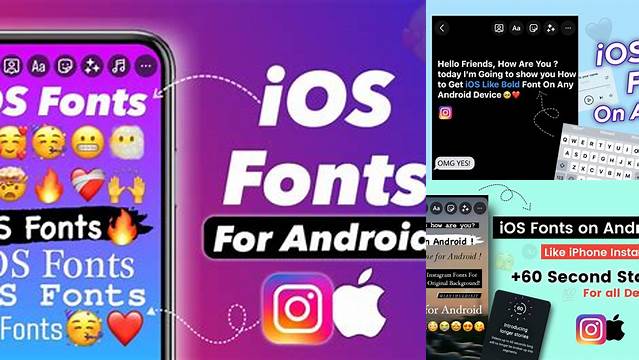
IOS Fonts On Android: A Complete Guide
Hey everyone! Ever looked at your Android phone and wished you could get that sleek, stylish look of iOS fonts? Well, guess what? You totally can! Getting iOS fonts for Android is easier than you might think. This guide is packed with everything you need to know, from why you might want to do this to the step-by-step instructions on how to make it happen. We'll cover different methods, tips, and tricks, so you can customize your Android experience and enjoy those iconic iOS fonts. Let's dive in and make your phone look fantastic!
1. Why You'd Want iOS Fonts on Your Android
So, you're probably wondering, why would I even bother with iOS fonts for Android? Well, there are a bunch of cool reasons! First off, let’s be real, those iOS fonts like San Francisco are just plain beautiful. They're clean, modern, and super easy on the eyes. If you're a fan of the iOS aesthetic, this is a simple way to bring a bit of that style to your Android device. Plus, changing up your fonts is a fun way to personalize your phone. It's like giving your phone a whole new outfit without buying a new phone! Customizing your device to reflect your personality is always a great idea, right? And let's not forget, using iOS fonts for Android can make your phone feel fresh and new. It's a small change that can have a big impact on how you perceive and interact with your device every day. Many users appreciate the readability and visual appeal of the iOS font, making it a great choice for those who spend a lot of time on their phones. Beyond aesthetics, using iOS fonts can offer a level of consistency if you switch between iOS and Android devices. This consistency can reduce eye strain and make the transition between devices smoother. Let's also consider the sense of community! Sharing your unique phone setup with friends and family can be fun. They might even ask you how you did it, leading to a conversation about customization options. Also, iOS fonts are known for their excellent legibility, which is important for people of all ages. So, whether you're a long-time Android user looking to spice things up or someone who just loves the look of iOS, there are plenty of good reasons to explore installing iOS fonts for Android. The key is to choose the method that best suits your needs and preferences. We’ll explore some of the best methods later in this guide.
Key Benefits and Reasons
- Aesthetic Appeal: iOS fonts are known for their clean and modern look, which can enhance the visual appeal of your Android device.
- Personalization: Customizing your phone with iOS fonts is a great way to reflect your style and make your device feel unique.
- Readability: Many users find iOS fonts easy to read, which can reduce eye strain and improve the overall user experience.
- Familiarity: If you use both iOS and Android devices, using iOS fonts can provide a consistent visual experience.
- Freshness: Changing fonts can make your phone feel new and exciting, enhancing your daily interaction with your device.
- Example: Nova Launcher, Apex Launcher.
- Font Apps:
- Pros: Simple, often with pre-loaded font libraries.
- Cons: May have limitations, could require additional permissions.
- Example: iFont.
- Root Access:
- Pros: Full control, system-wide font changes.
- Cons: Requires root access, potential risks if not done correctly.
4. Using Custom Launchers for iOS Fonts
One of the easiest and safest ways to get iOS fonts for Android is by using custom launchers. Launchers are basically replacements for your phone’s default home screen interface. They give you a lot of control over how your phone looks and feels, and thankfully, many of them include font customization options. The process is usually pretty straightforward. First, you'll need to download and install a custom launcher from the Google Play Store. Popular choices include Nova Launcher, Apex Launcher, and Action Launcher. Once the launcher is installed and set as your default, you can start exploring its settings. Most launchers have a dedicated section for font customization, often found under